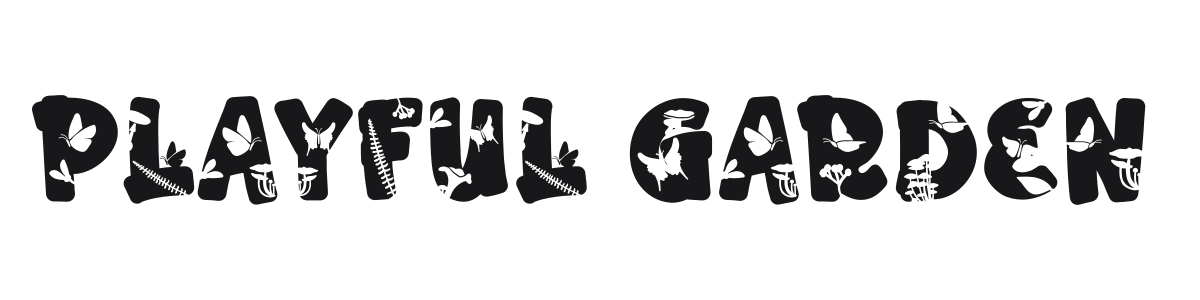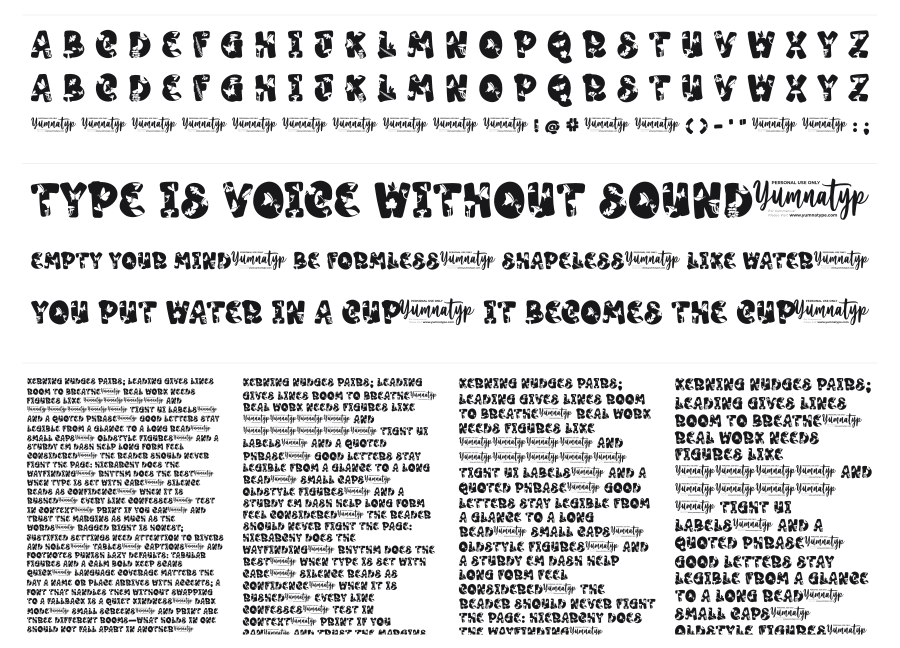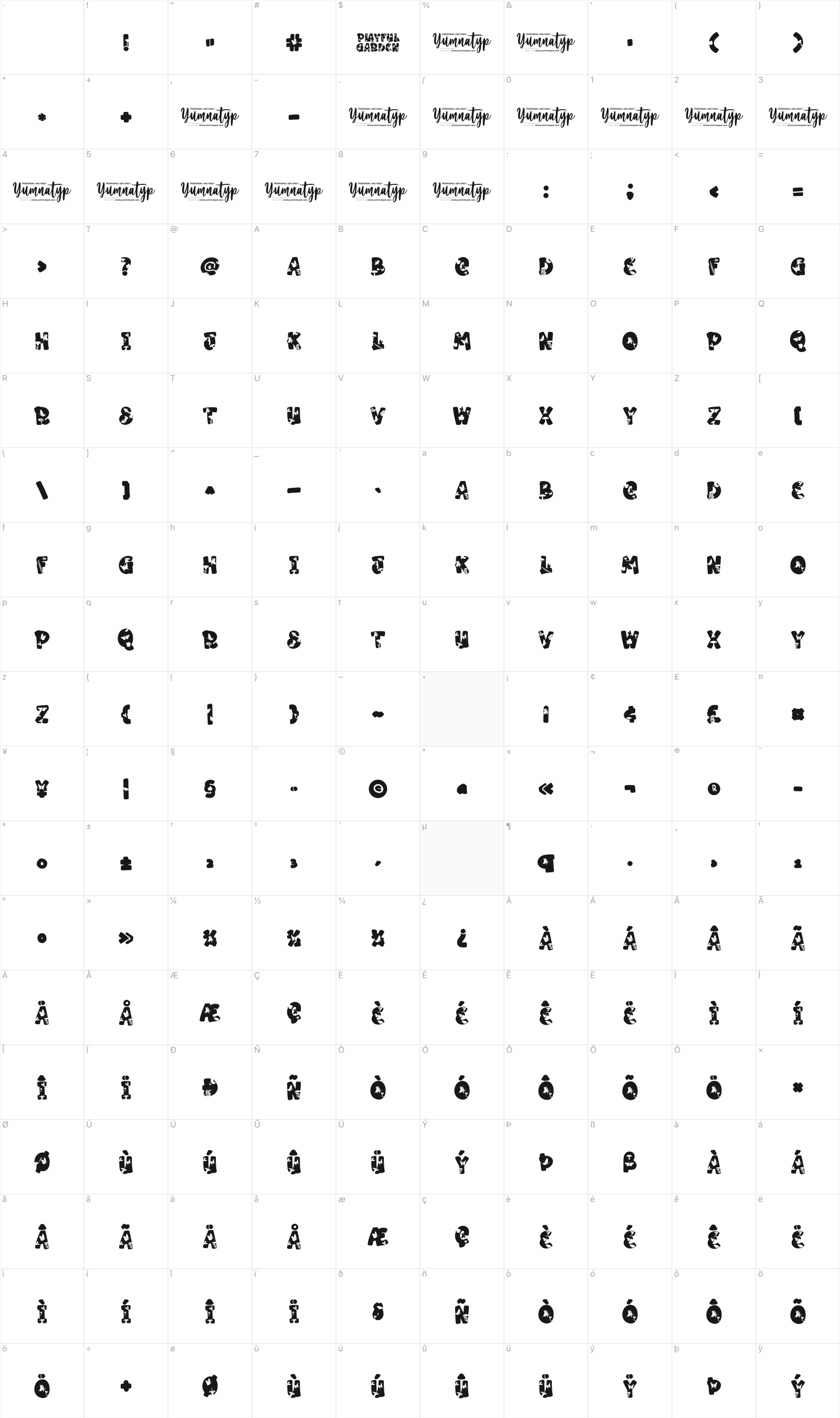
Playful Garden
Playful Garden is a bold novelty display font where every character is filled with nature-themed cutout silhouettes: butterflies, mushrooms, leaves, and flowers punched into chunky black strokes. The result sits somewhere between typography and illustration, giving headlines an immediate organic, garden-party energy. It works best large, where the interior cutout details can breathe and tell their story.